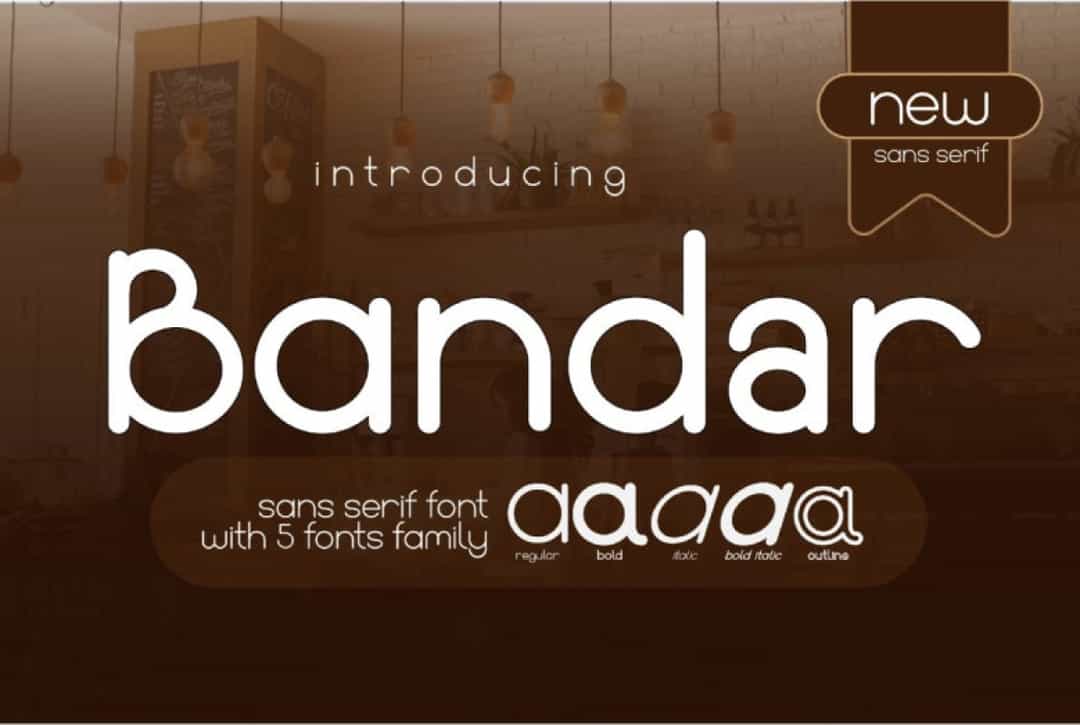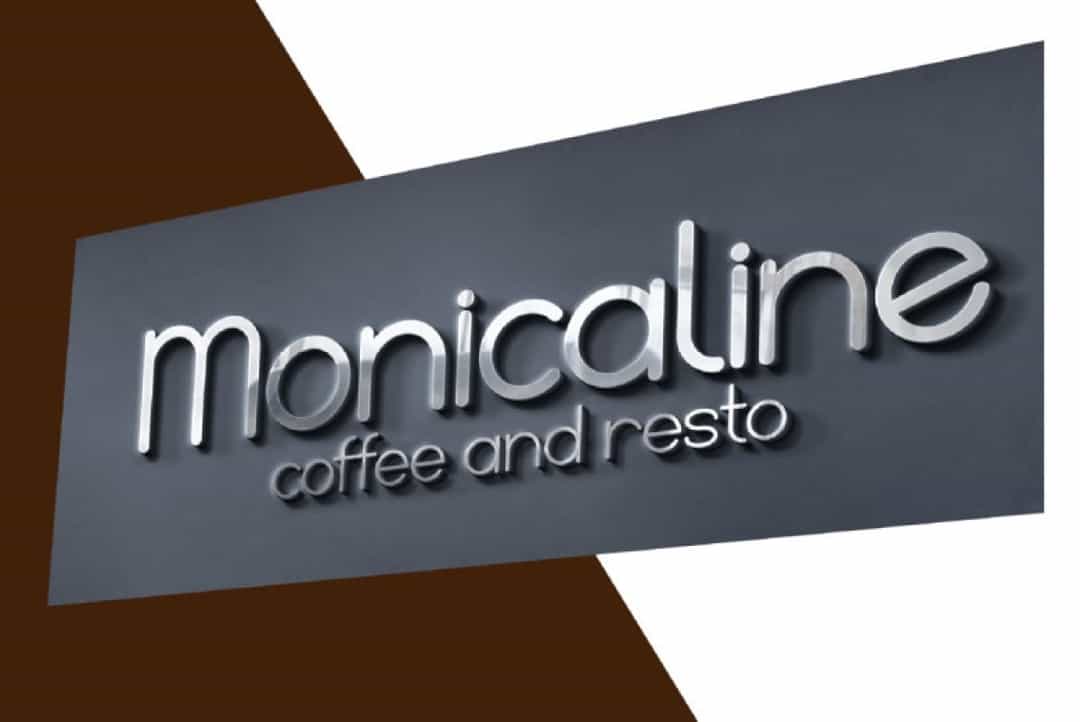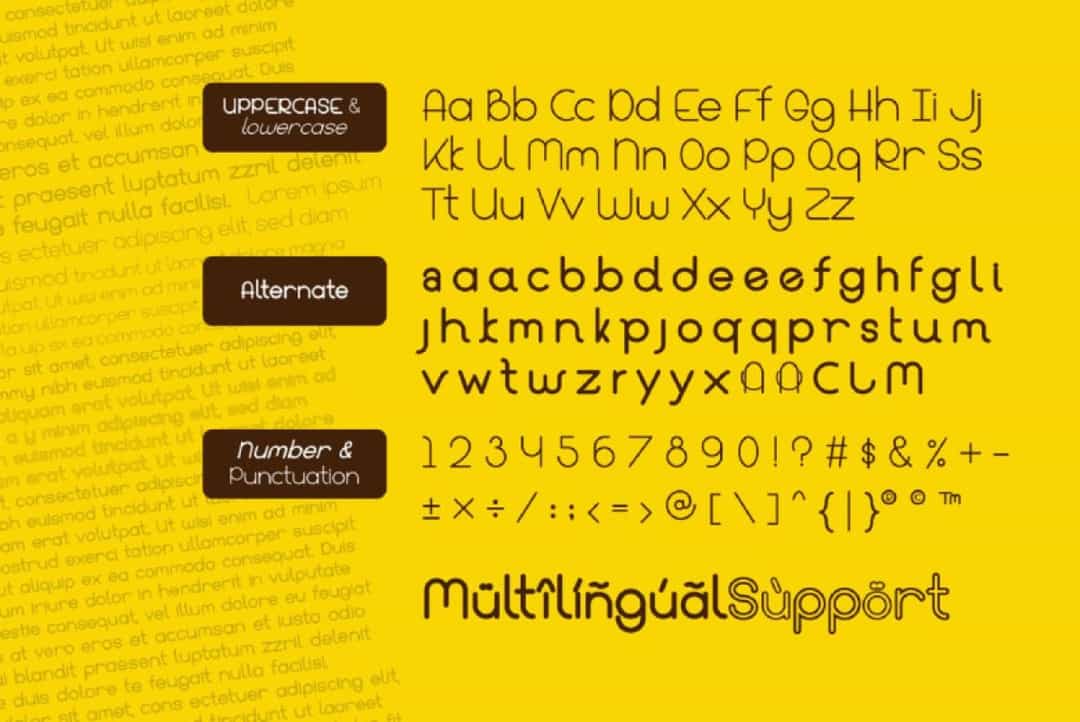
Bandar is a sans-serif typeface family which offers five weights: stdet, bold, italic and bold italic and also outline. Great for display use on small screens. Bandar can indeed be a great choice for any design job, whether it is logos, branding, brochures, business cards, social media posts, advertisements, products labels for products labels designs photo or watermark invitations or any other project.